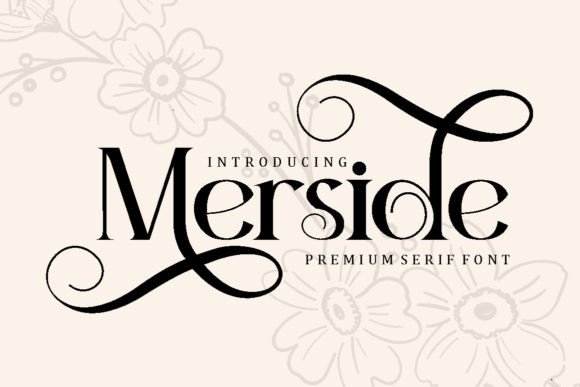
Dive into the realm of typography with Merside, a premium serif font that exudes sophistication and elegance. Its clean and crisp lines offer a versatile canvas for your creative endeavors, making it a perfect choice for a wide array of projects, ranging from high-end branding to classic book covers and eye-catching posters.
Crafted with meticulous care and attention to detail, Merside is a timeless masterpiece that elevates any design. Its rich history and classic serif style add a touch of refinement, while the clean lines give it a modern twist that resonates with contemporary aesthetics.
With Merside, you hold the key to unlocking a world of visual elegance. Envision your designs adorned with this exquisite font - a luxury brand's logo exuding opulence, marketing materials for a high-end fashion label radiating allure, or product packaging that captivates with a timeless charm. Merside brings an air of exclusivity to your creations, setting them apart in a world saturated with mediocrity.
In a realm where mediocrity reigns, Merside emerges as a beacon of distinction. Its premium quality and carefully crafted details make it the perfect choice for designers seeking to make a lasting impression. Whether you're designing for a luxury brand, creating elegant design concepts, or crafting high-end fashion campaigns, Merside is your perfect partner, imbuing your work with a timeless and classic appeal.
Embrace Merside, the font that transforms your designs into works of art. Its elegant curves and refined style will leave an indelible mark on your audience, captivating their attention and leaving a lasting impression. Merside is not just a font; it's an investment in your creative endeavors, a gateway to unlocking a world of sophistication and elegance that will set your designs apart.